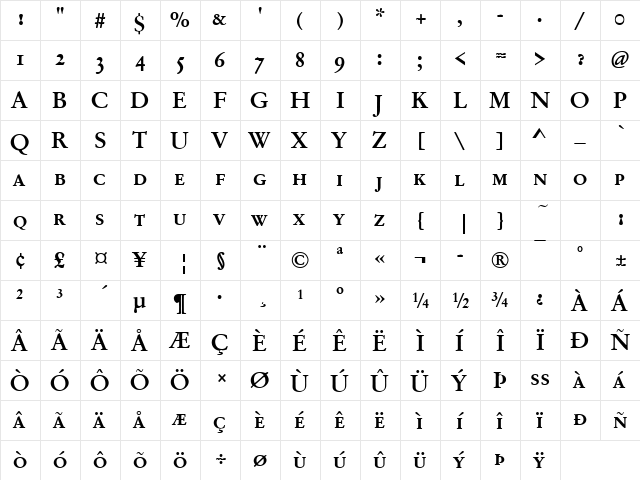
GaramondNo2SCTMed Regular Font Preview
GaramondNo2SCTMed Regular
Design Context for GaramondNo2SCTMed Typeface
GaramondNo2SCTMed is a composed and adaptable typeface that performs quietly and consistently across a wide range of design contexts.